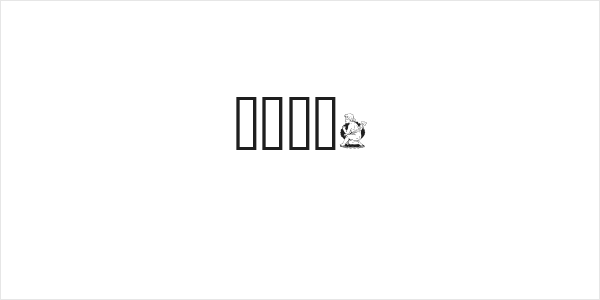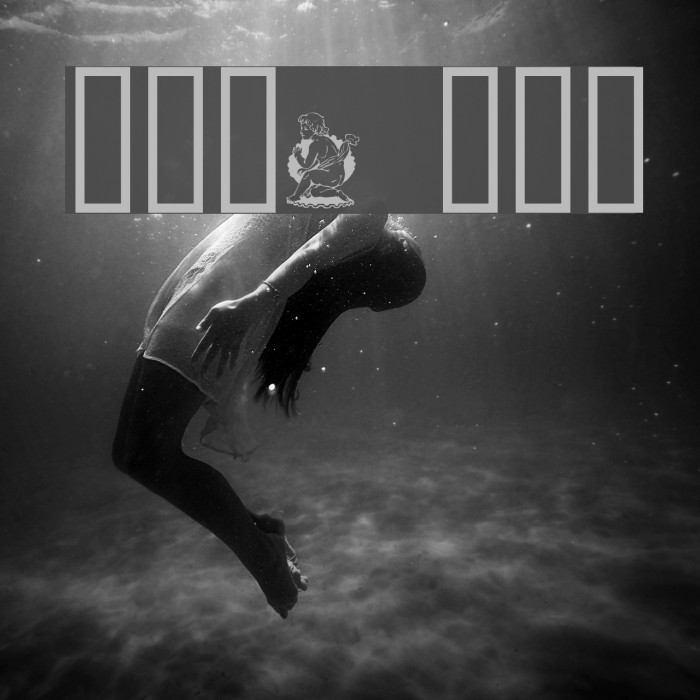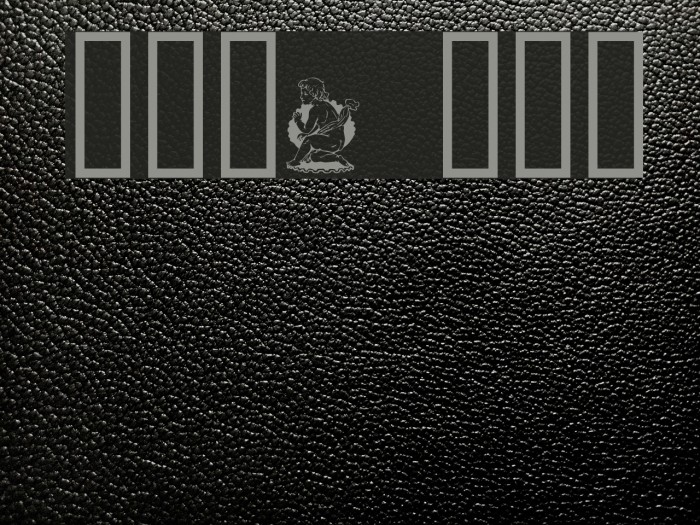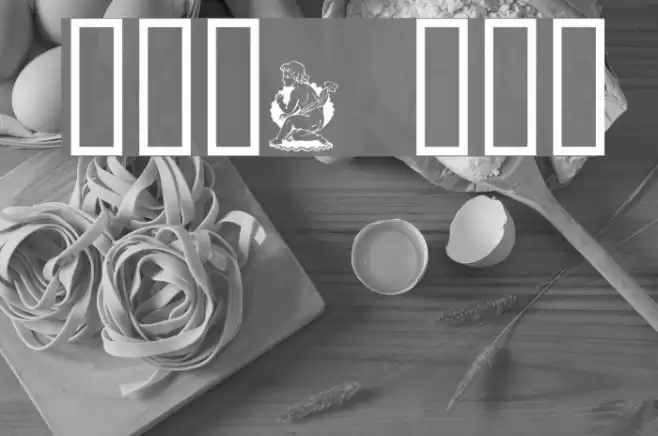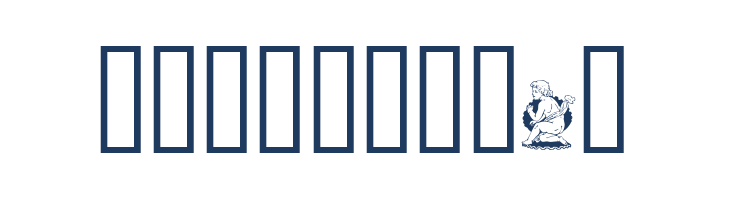
Engle Font
Engle Description
This is not a valid font. The image contains illustrations of people instead of alphanumeric characters or symbols typically associated with a font set. Fonts generally include a complete set of characters such as letters, numbers, and punctuation marks, which are not present here.